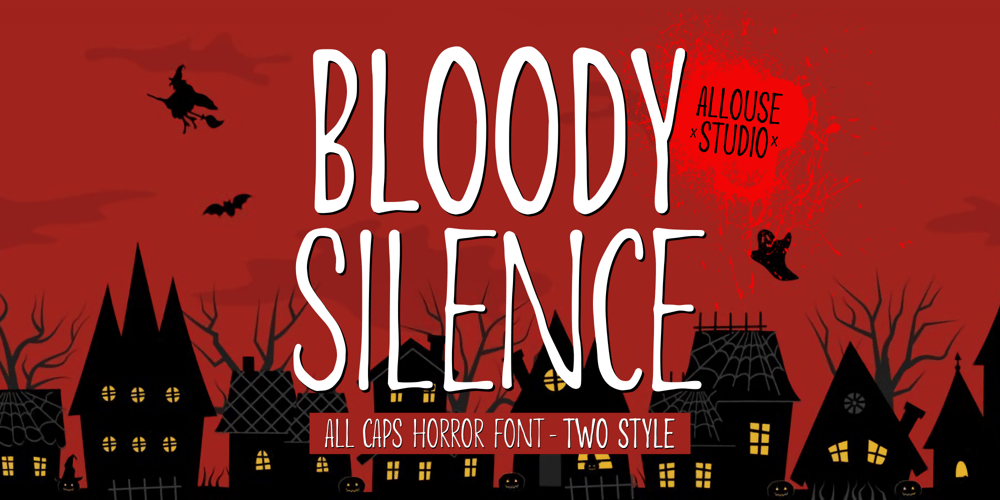
Bloody Silence Font Family was designed by Fachrizal Yusuf and published by Allouse Studio. Bloody Silence contains 2 styles and family package options. Proudly Presenting, Bloody Silence All Caps Horror Font With Two Style.Bloody Silence is perfect for any titles, logo, product packaging, branding project, megazine, social media, wedding, or just used to express words above the background.Bloody Silence also come with Multi-Lingual Support.Enjoy the font, feel free to comment or feedback, send me PM or email.